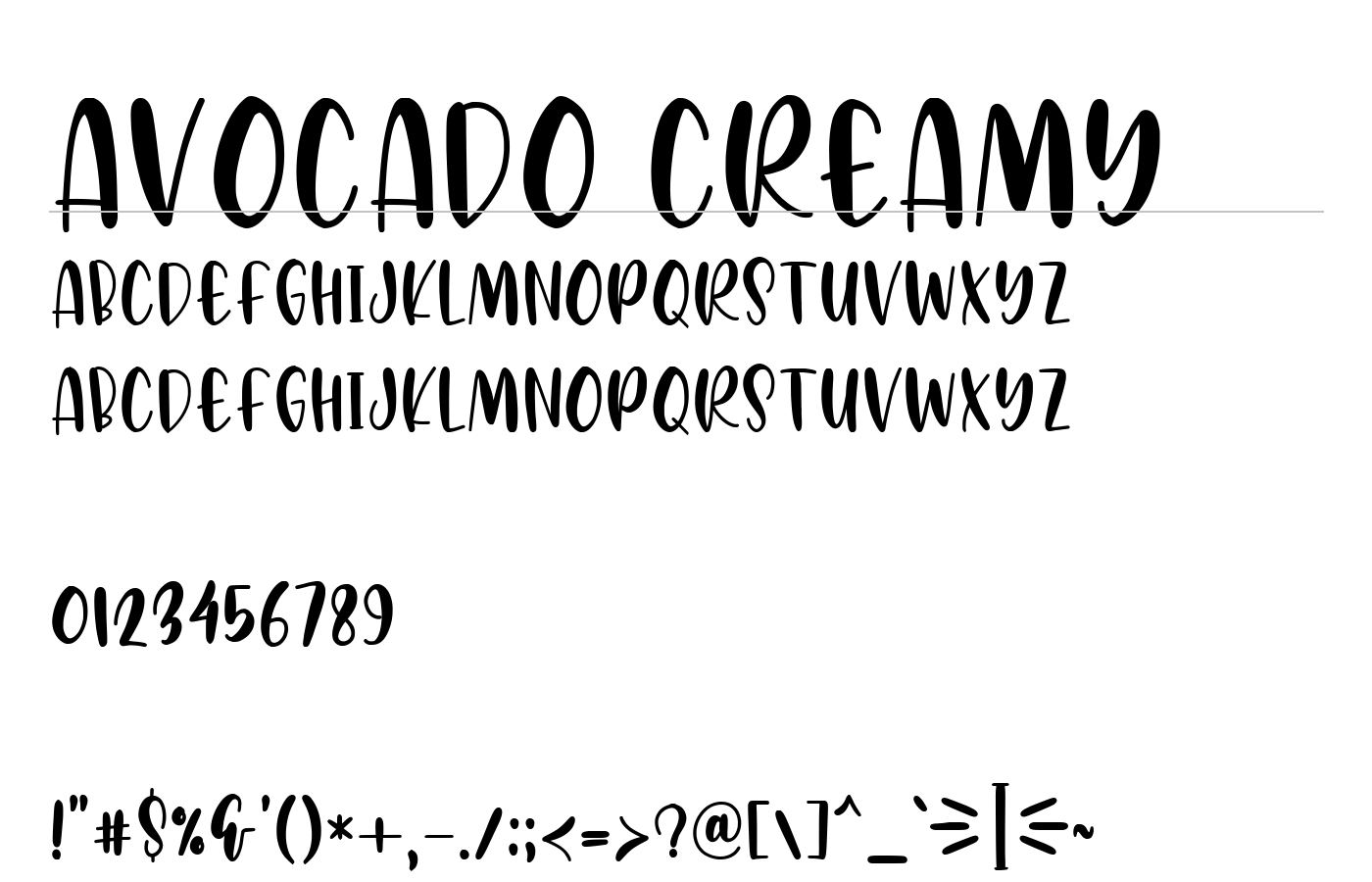
Avocado Creamy is a playful and casual handwritten sans serif font with a lively, organic feel. Its varying stroke widths and slightly irregular letterforms give it a friendly, approachable personality, making it ideal for informal branding, packaging, and creative projects that want to convey warmth and creativity. This font works best in headlines and display uses where its charming style can shine and engage viewers with a personal touch.
Avocado Creamy Font
About Avocado Creamy Font
| Font family | Avocado Creamy Font |
| Designer | Almarkhatype 2020 - Abdul Malik |